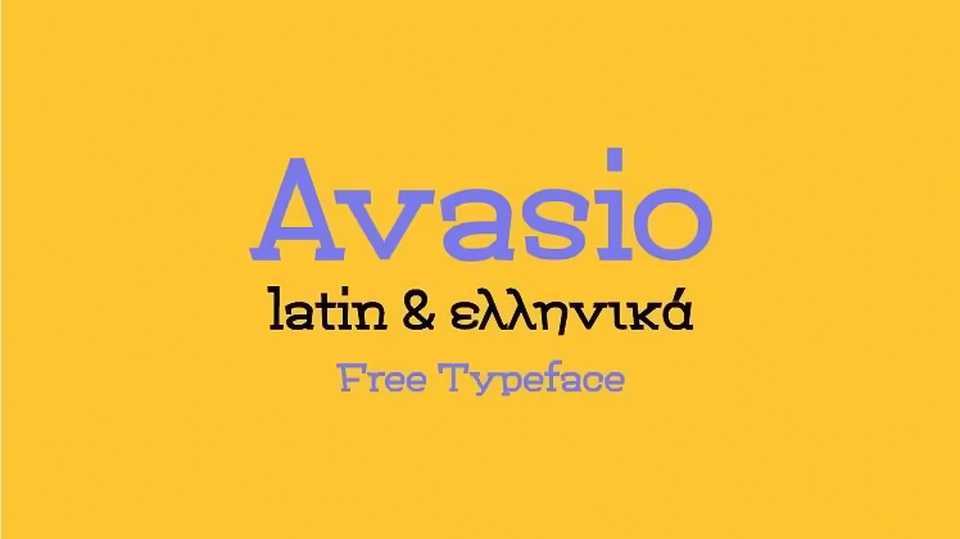
Download Avasio font, a mix of a proper serif typeface with cartoony fun. Avasio legible enough to work in longer texts, it’s perfect for childrens’ books and magazines.
Designer: Iordanis Passas